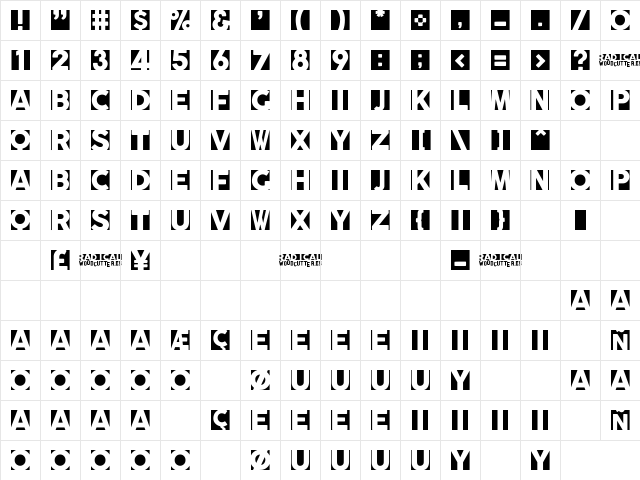
radicalblock Regular
Design Context for radicalblock
radicalblock is a composed and adaptable typeface that performs quietly and consistently across a wide range of design contexts.